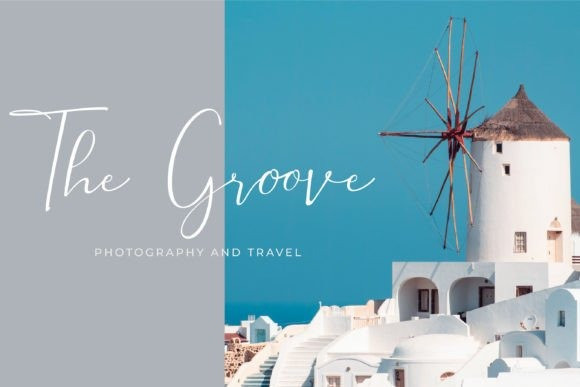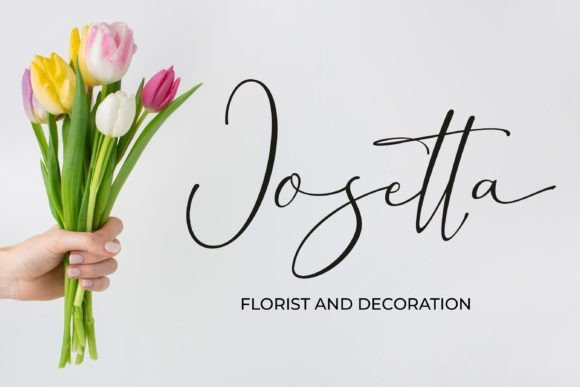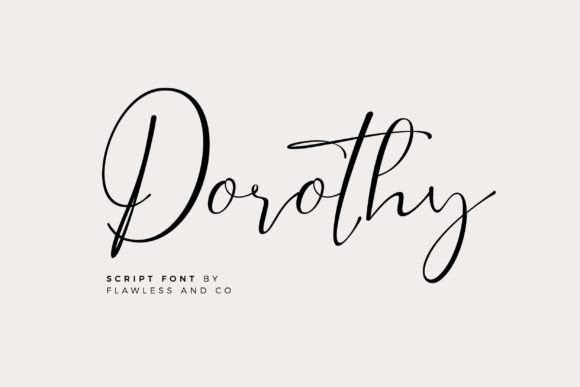
Dorothy Typeface
Dorothy Typeface, is a modern and elegant script font. It looks beautiful on a variety of designs requiring a personalized style, such as wedding invitations, thank you cards, greeting cards, logos, and so on.